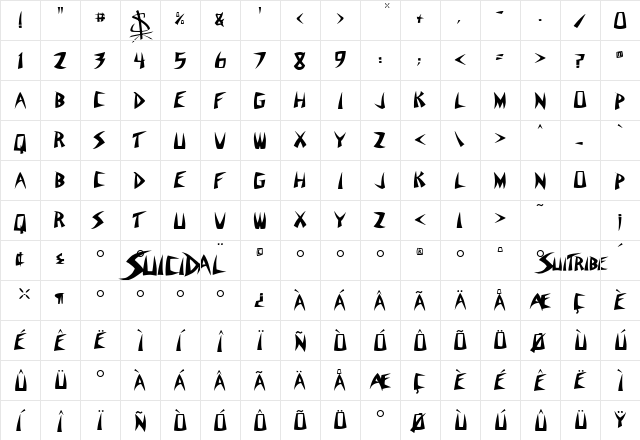
Suitribe Venice Style
Design Context for Suitribe Typeface
Suitribe is a composed and adaptable typeface that performs quietly and consistently across a wide range of design contexts.